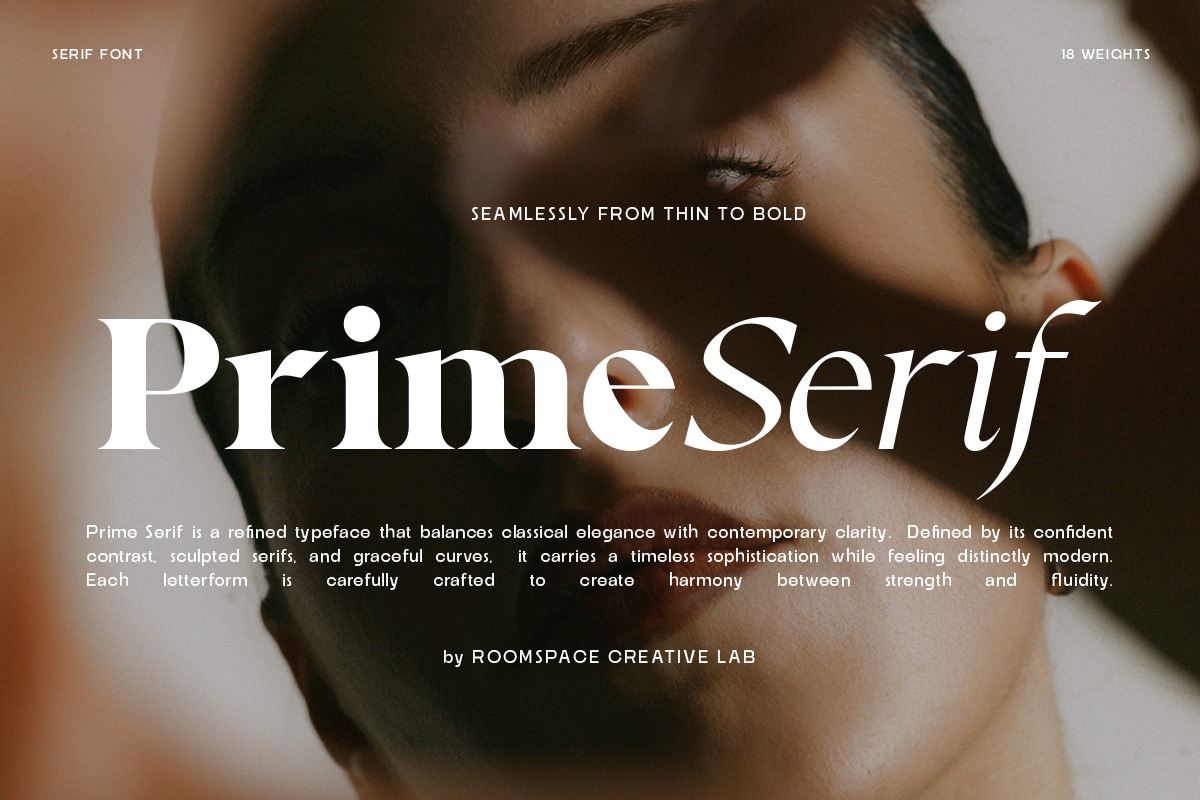
Prime Serif – Modern Serif Font
Prime Serif – Modern Serif Font is a versatile font designed to adapt beautifully across different design styles, offering dependable readability and balance. PrimeSerif is a modern serif typeface designed to balance classical elegance with contemporary clarity. Featuring sculpted serifs, graceful curves, and confident contrast, this typeface creates a refined typographic presence ideal for luxury branding, magazine headlines, and premium visual identities. With 18 weights ranging from Thin to Bold, Prime Serif offers exceptional flexibility for both display and editorial typography while maintaining harmonious readability. Perfect for designers seeking a sophisticated serif that feels both timeless and modern.